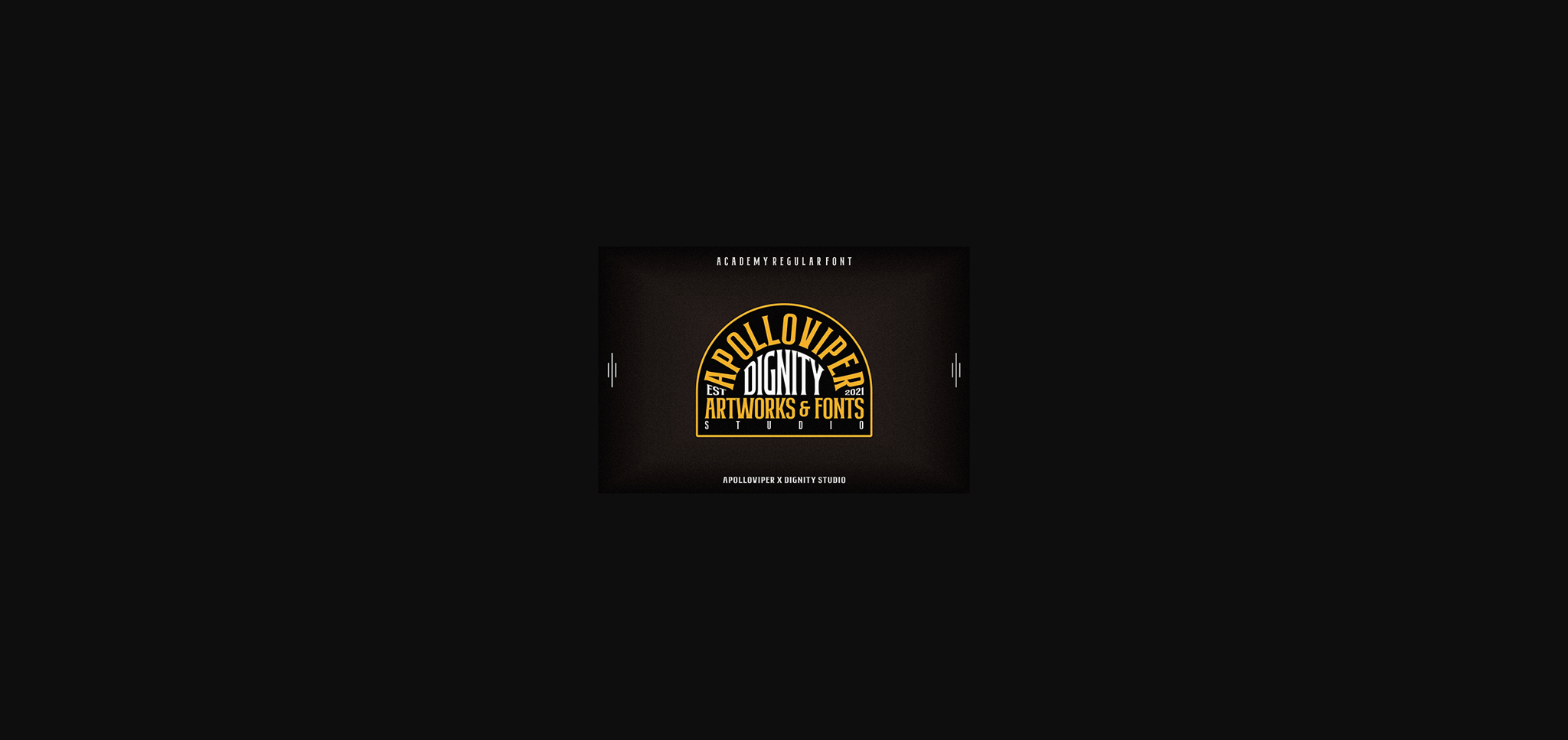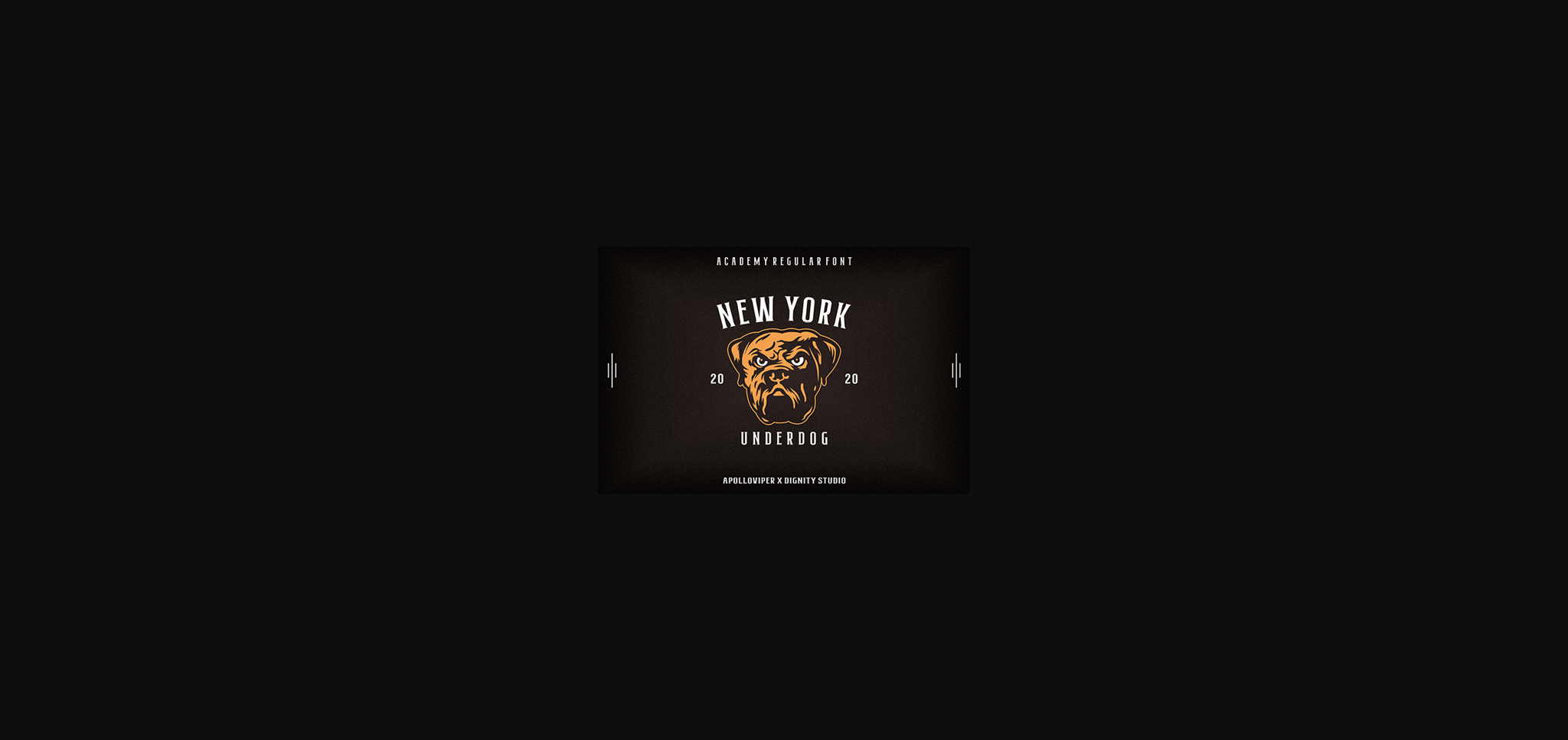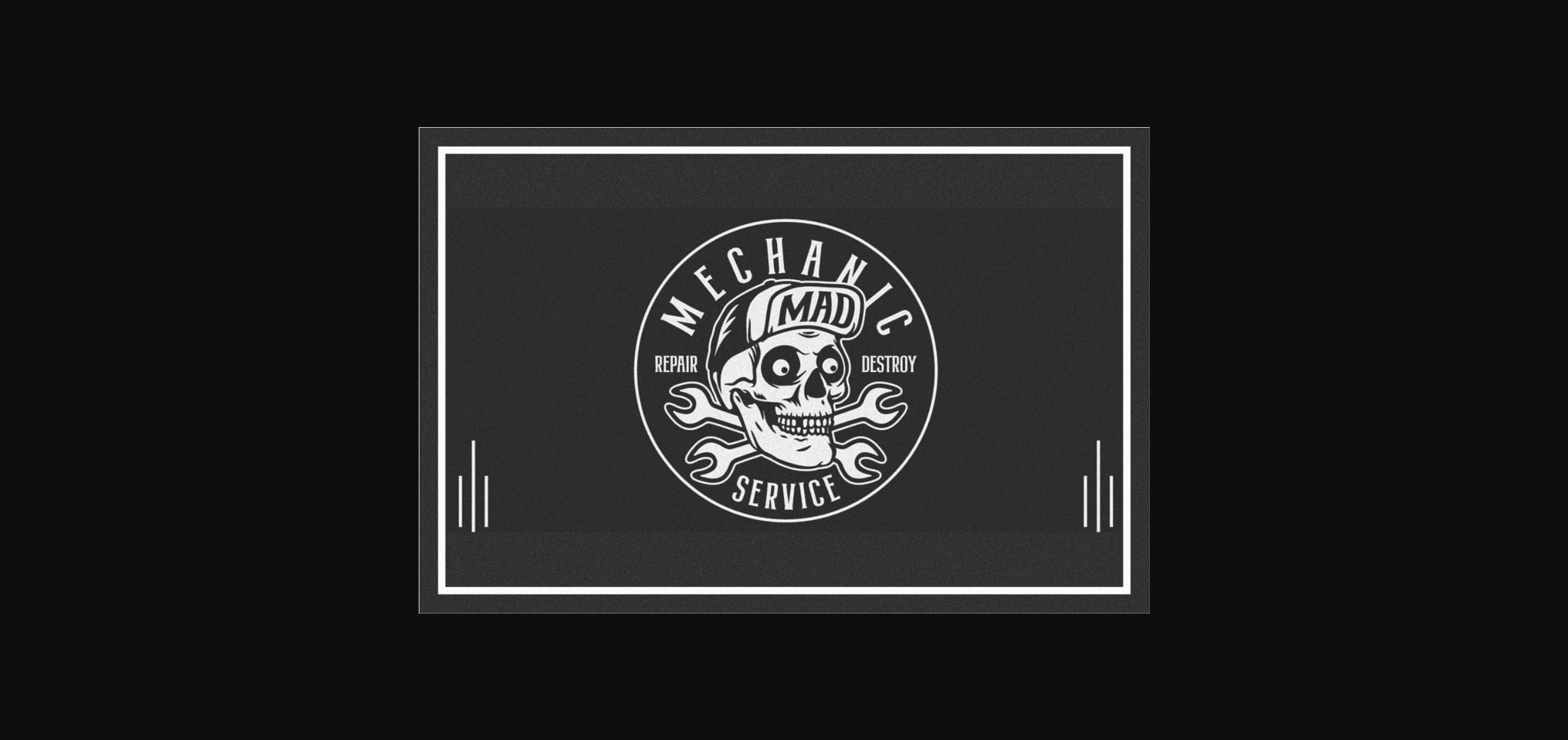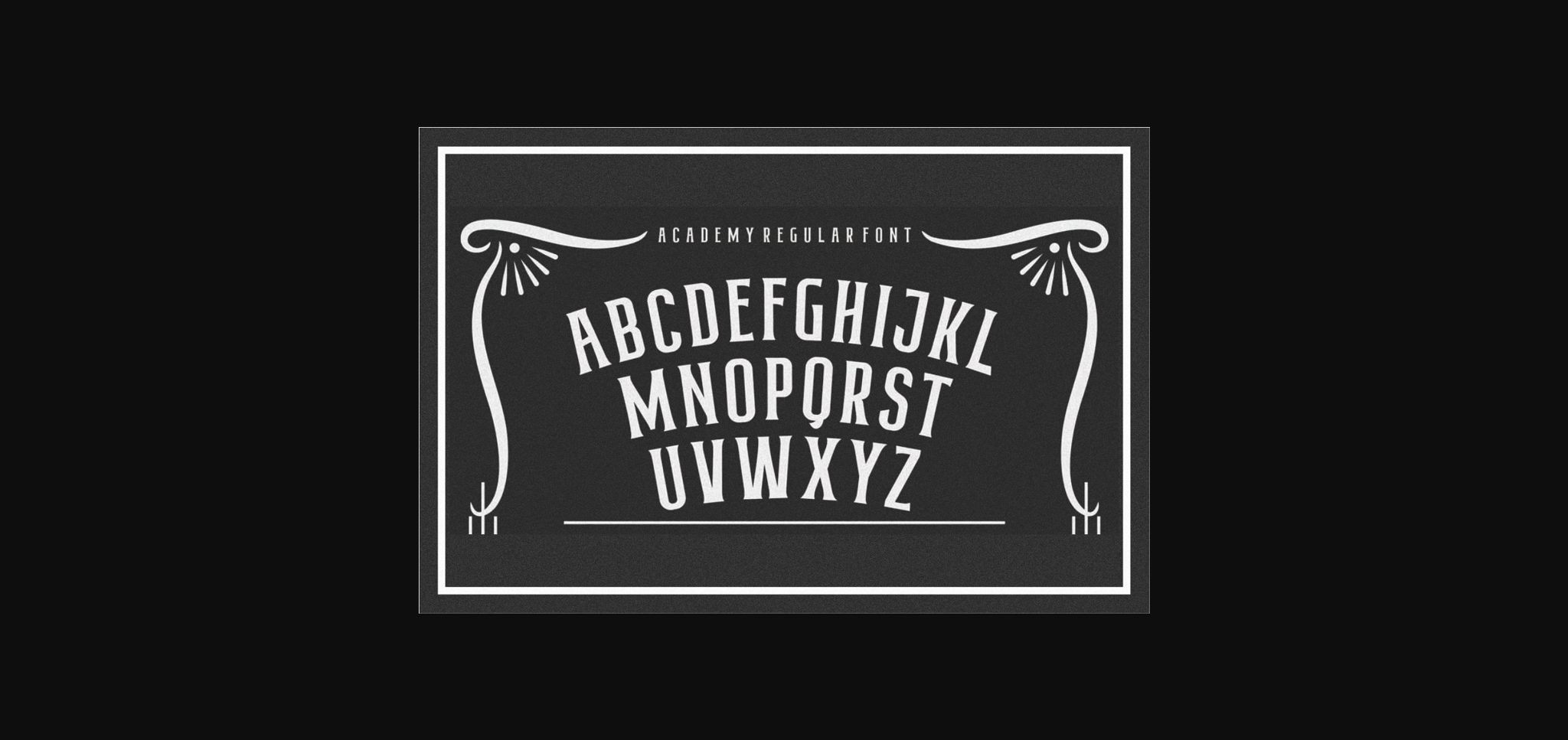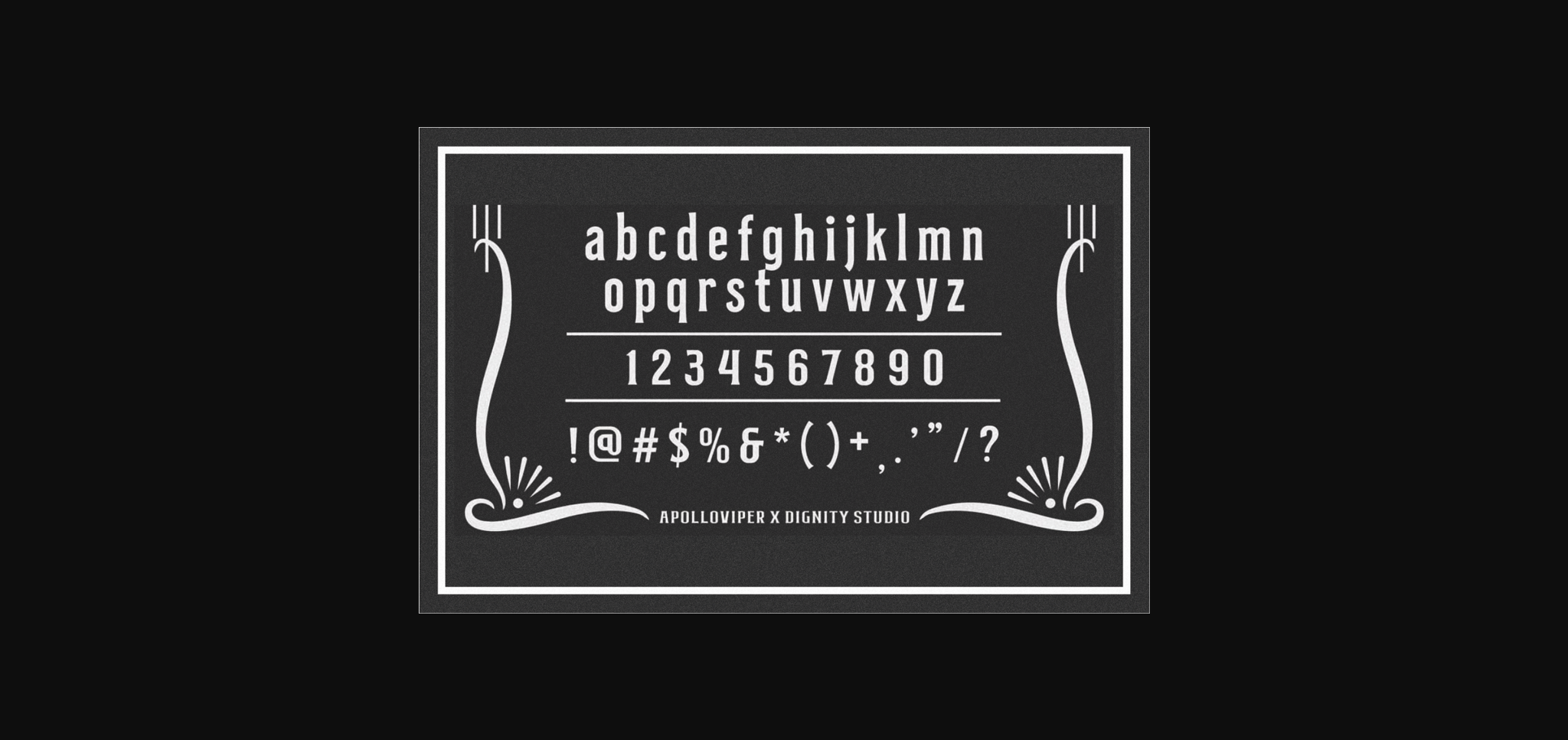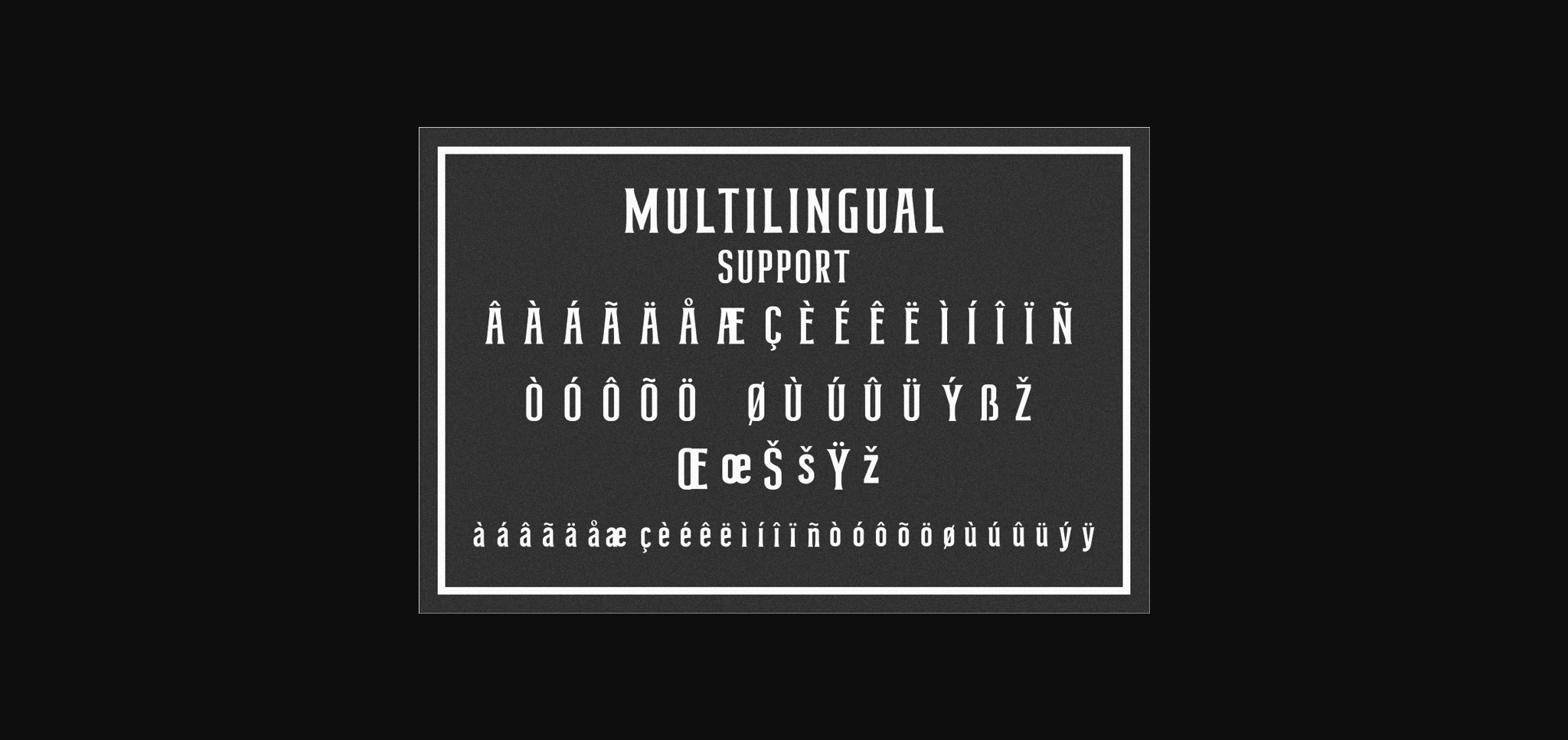
HomeSans Serif FontsAcademy Font Sans Serif Fonts Academy Font FacebookXPinterestWhatsApp 1 of 9 ... Academy Font Poster 2... Academy Font Poster 3... Academy Font Poster 4... Academy Font Poster 5... Academy Font Poster 6... Academy Font Poster 7... Academy Font Poster 8... Academy Font Poster 9... About Academy Font Academy is a simple and modern sans serif font. Academy will look outstanding in any context, whether it’s being used on busy backgrounds or as a standalone headline! DOWNLOAD NOW People also explored Honse Chinese Monogram Font Stick Font Retro Mango Font Lavitate Font Bostroom Font Turbo Font Inky Font Angella Font Mandala Mountain Font 301 0 TagsAcademyAcademy Font Previous articleHasley FontNext articleNew Comer Sans Font LEAVE A REPLY Cancel reply Comment: Please enter your comment! Name:* Please enter your name here Email:* You have entered an incorrect email address! Please enter your email address here Website: Save my name, email, and website in this browser for the next time I comment. Personal Use Free Child Writing Free Personal Use Free Read more about this font Budmo Personal Use Free Read more about this font Adventure Font Personal Use Free Read more about this font Avatarock Personal Use Free Read more about this font BLOG Fonts That Capture the Spirit of New York City New York City is more than just a place—it’s an experience, a rhythm, a visual language... Top 7 Google Fonts Alternatives for Faster and Privacy-Friendly Web Design (2025) 5 Fonts That Will Dominate Design Trends in 2026 How to Install and Use Fonts on Windows, macOS, and Web Projects